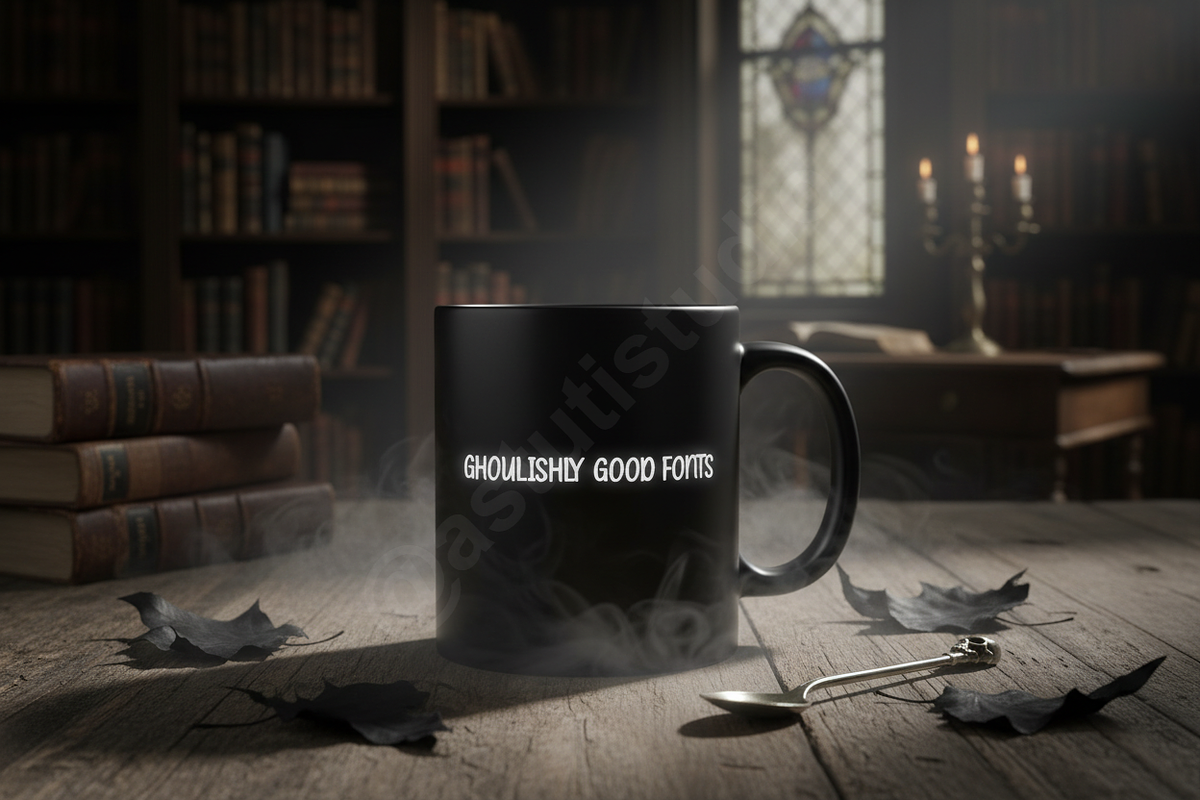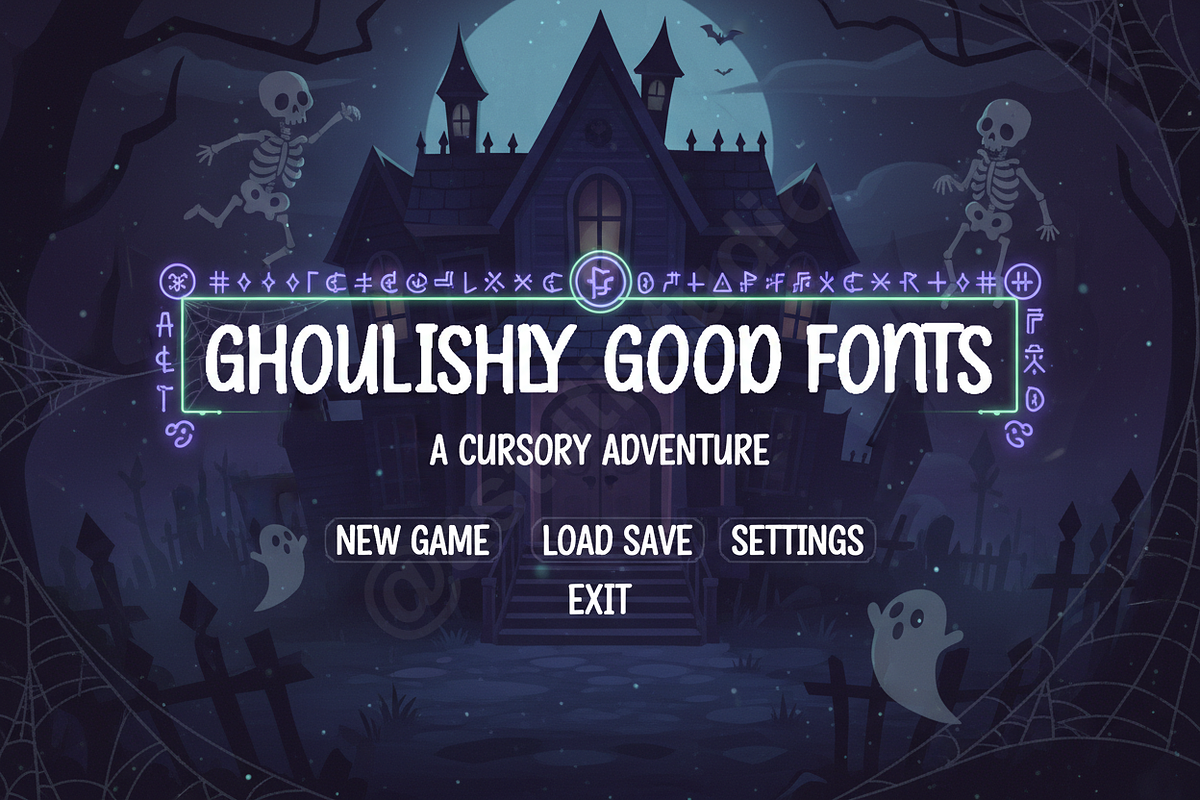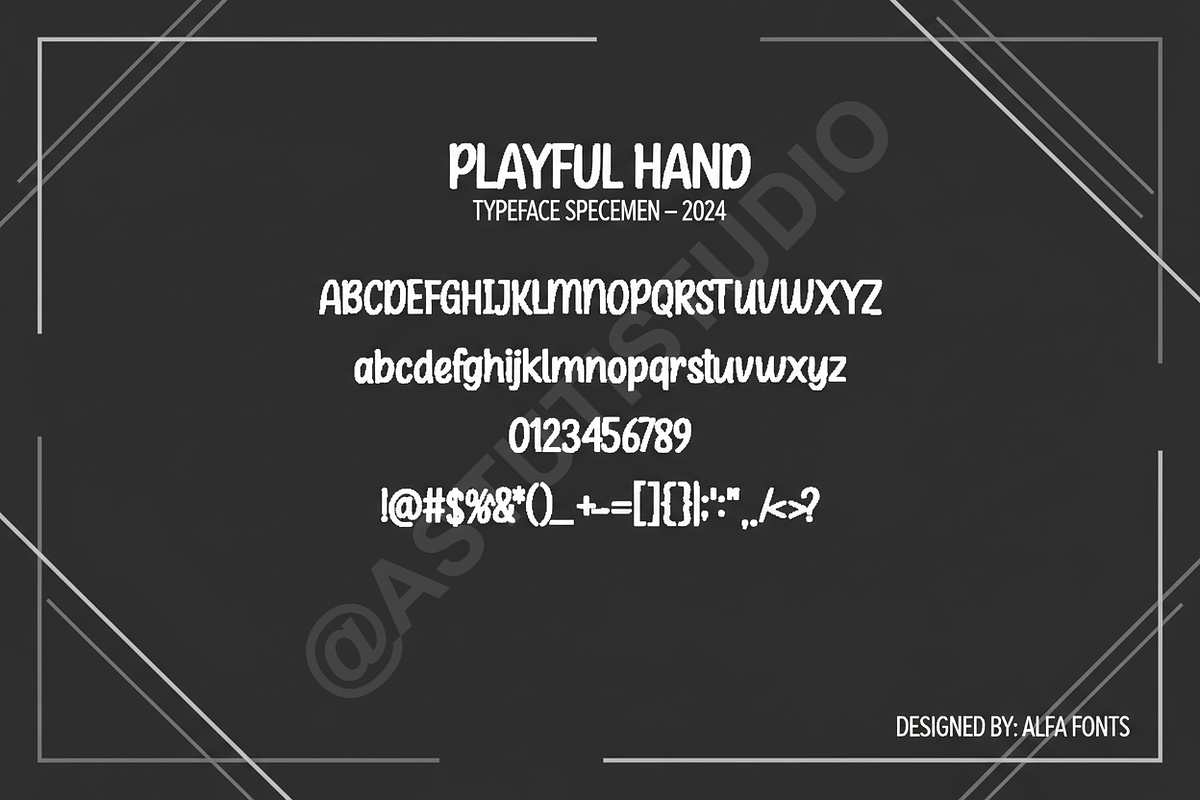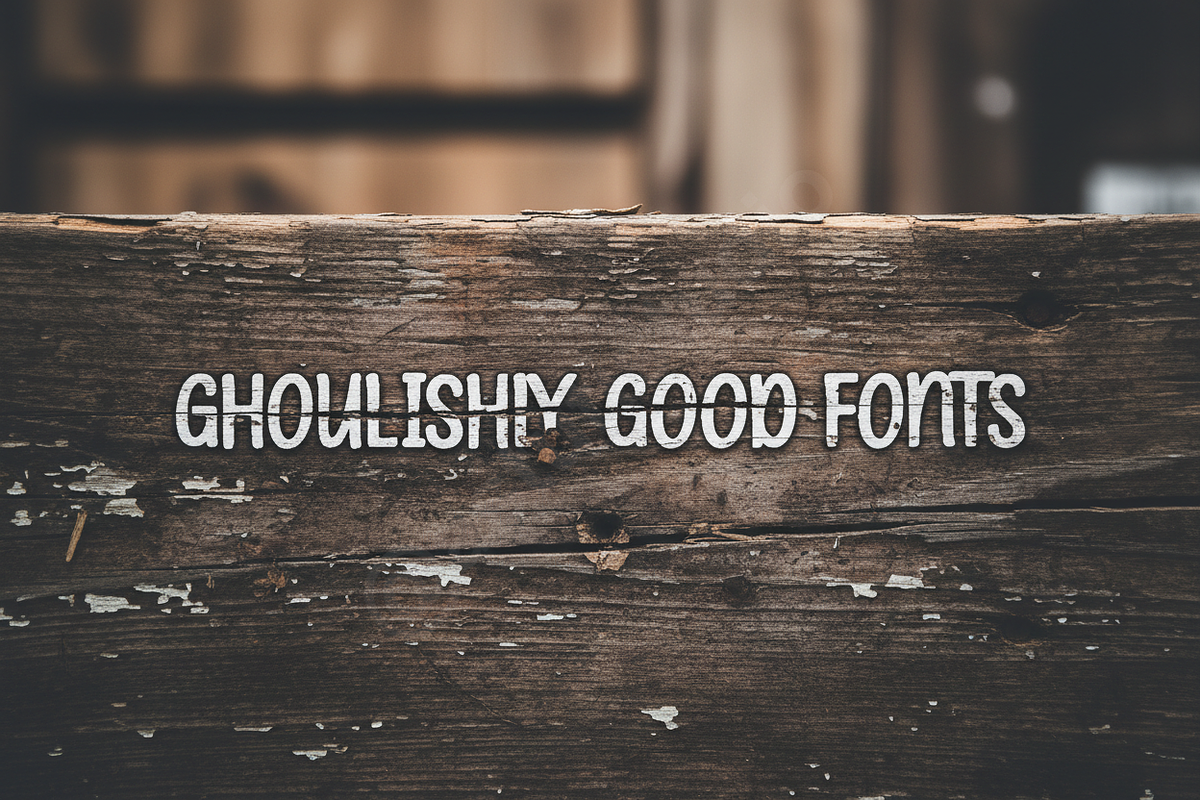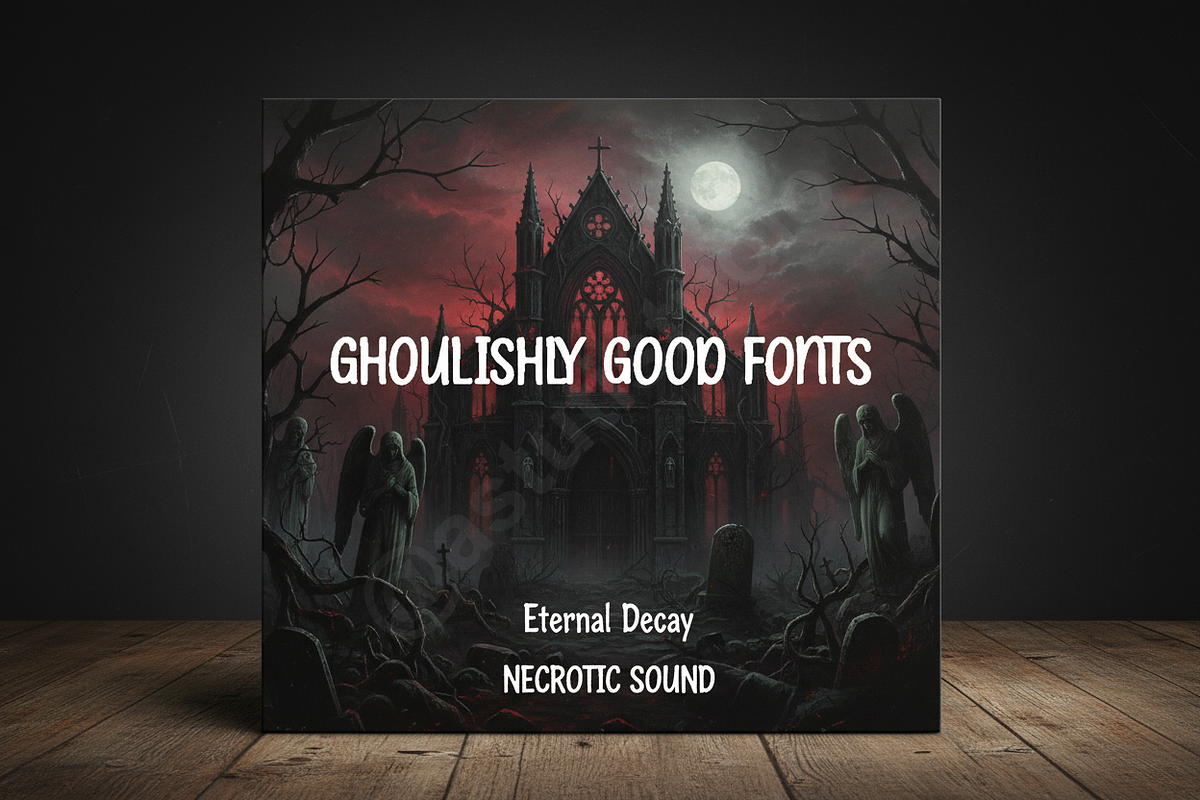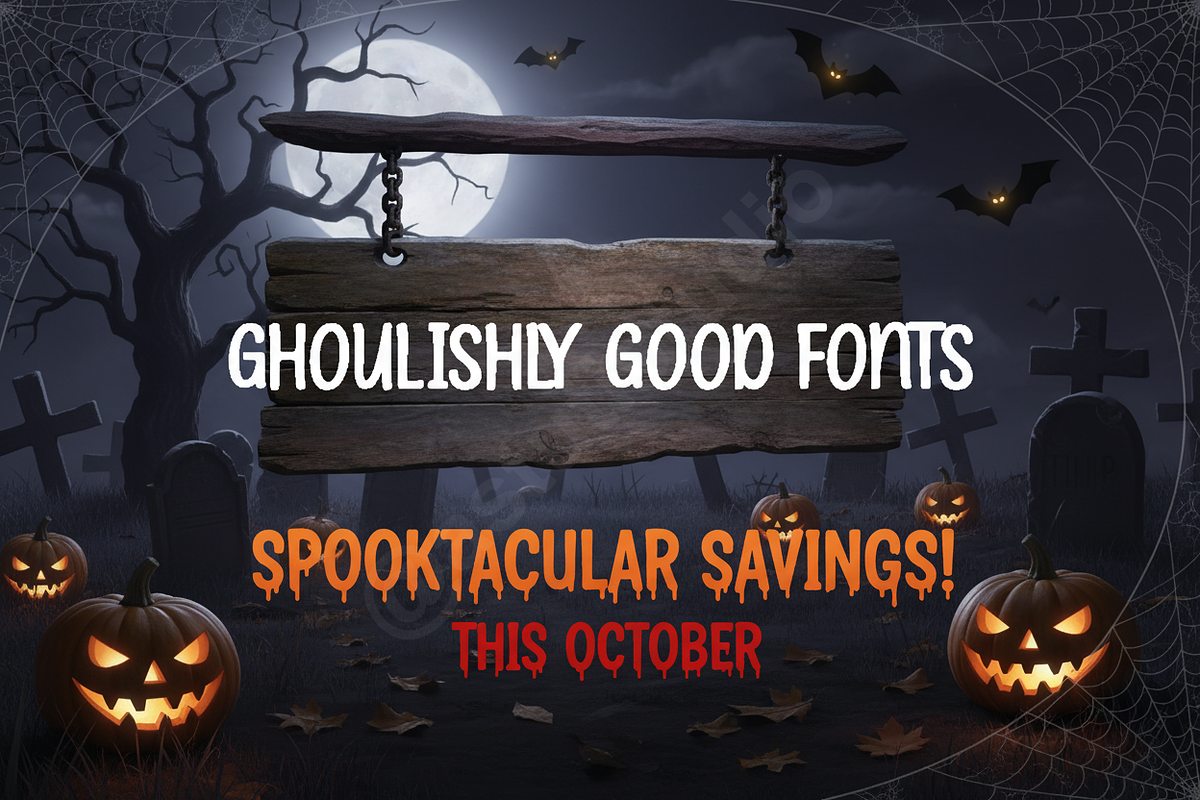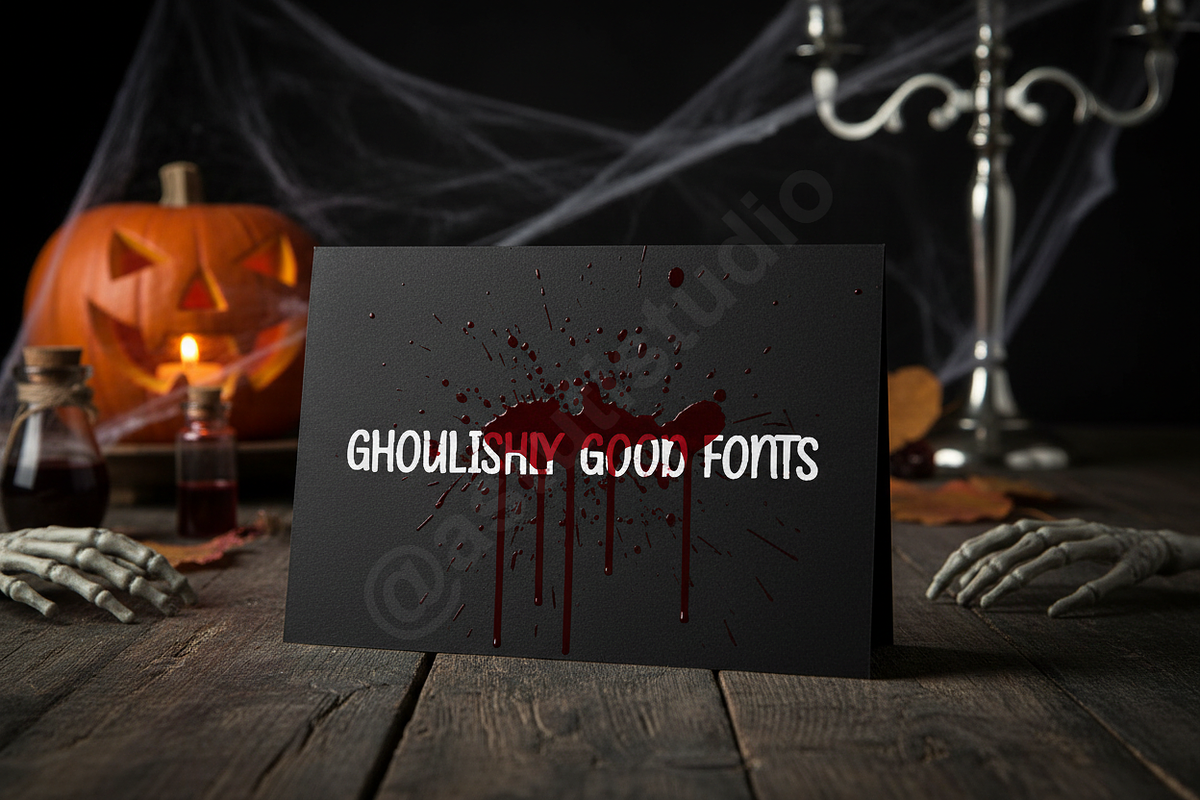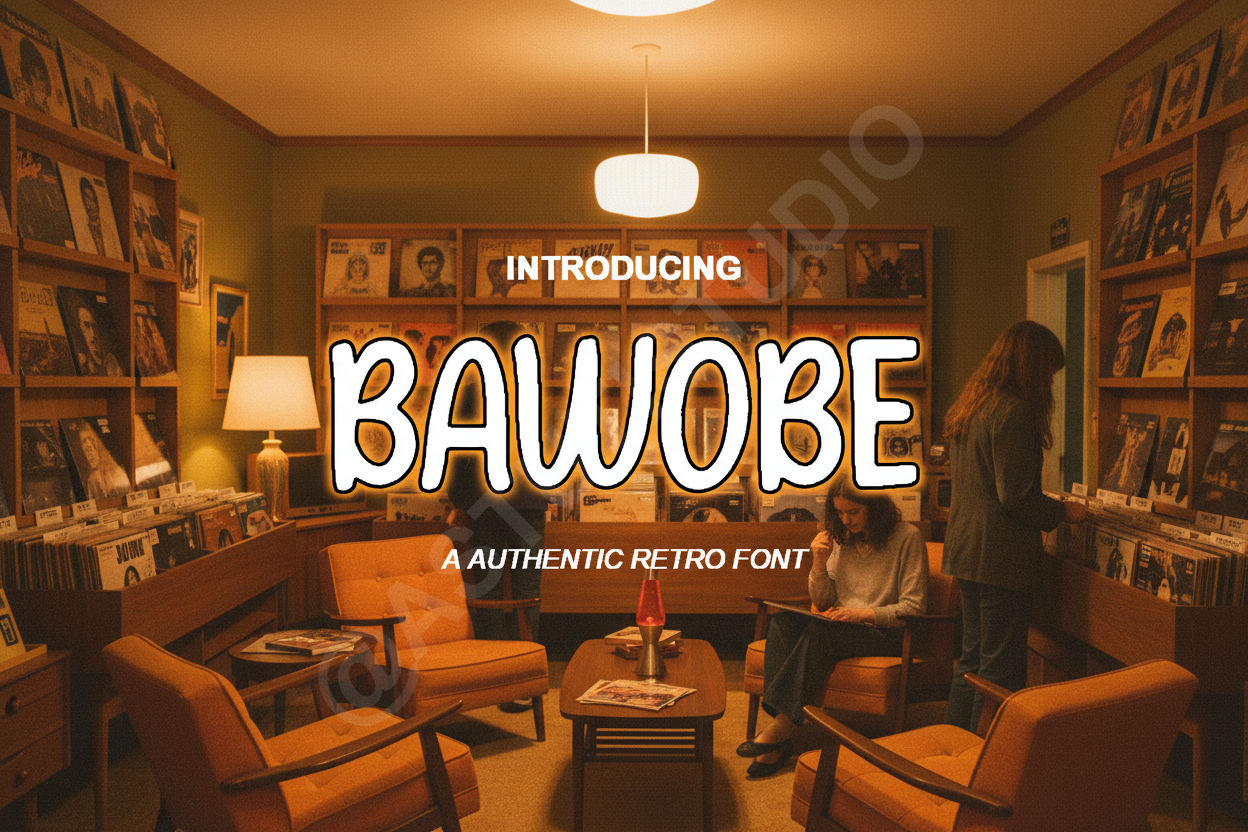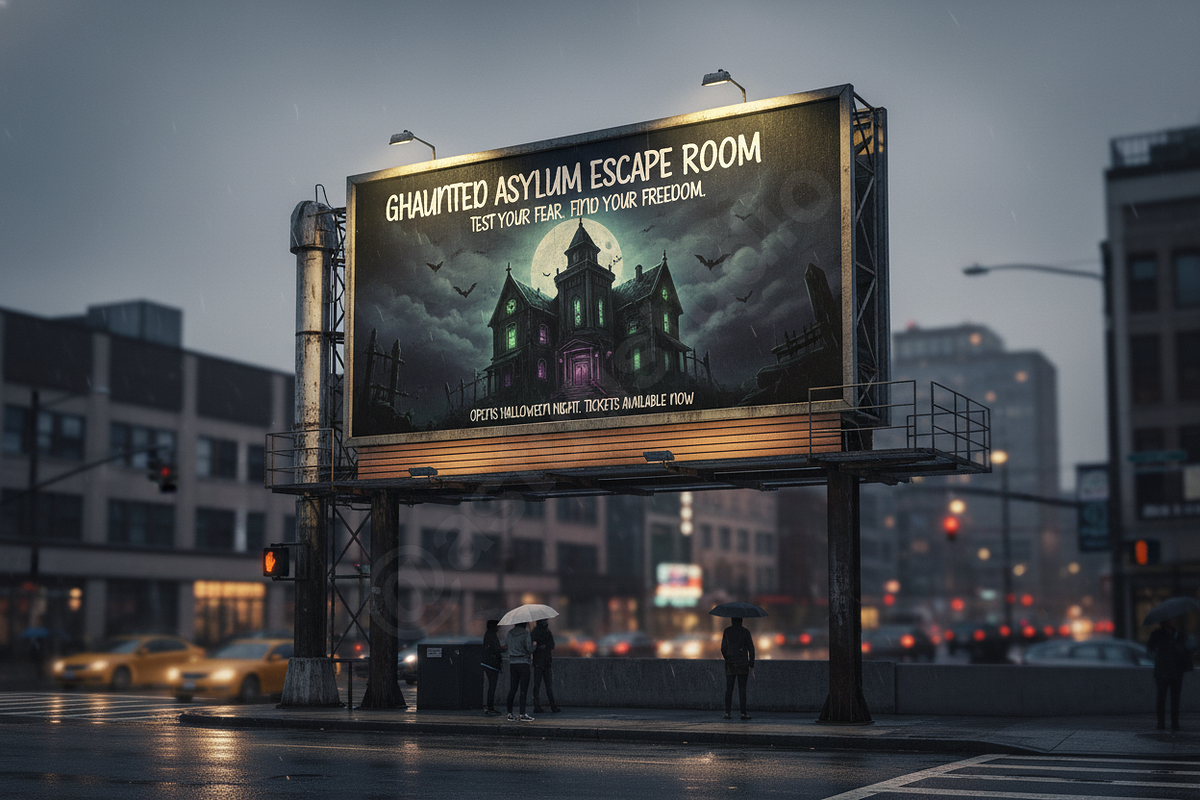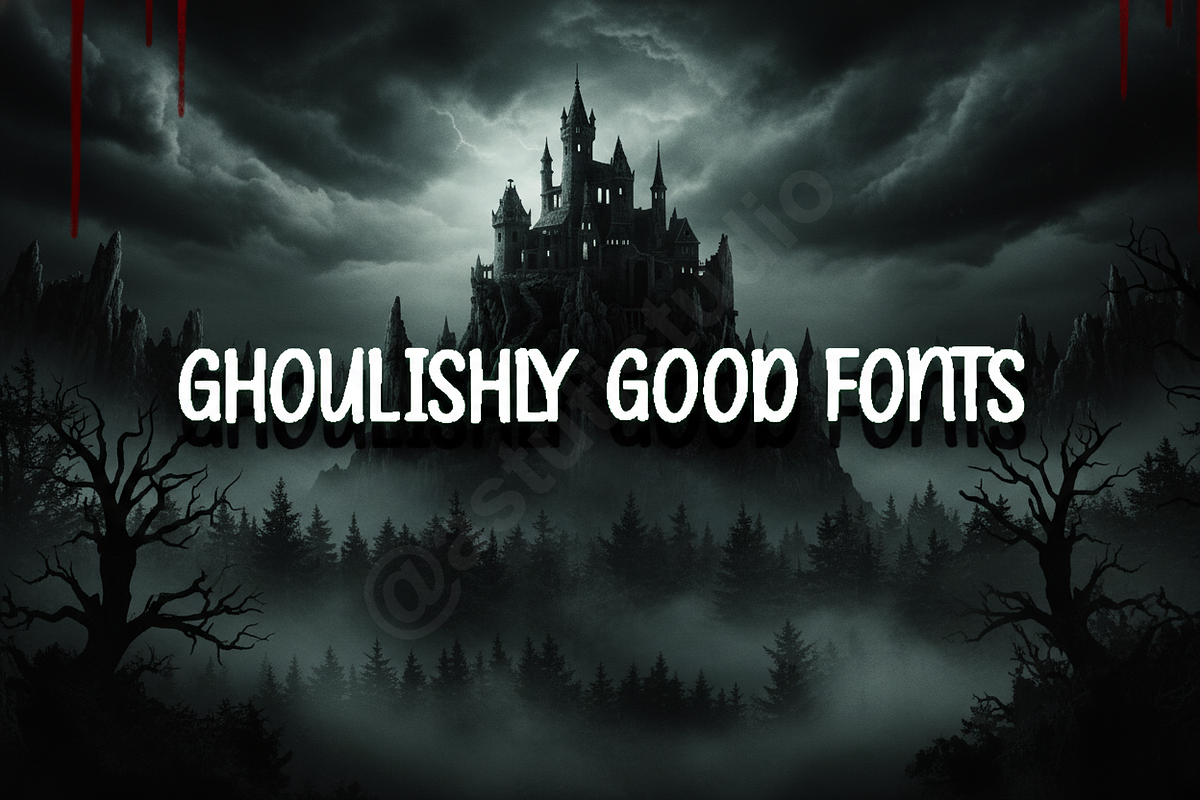
Bawobe Creepy Dripping Horror Font
✨ INTRODUCING BAWOBE ✨
Bawobe Playful Kids Font - Cute Bouncy Handwritten Typeface | Children's Birthday Party Design, Crafting, Cricut Projects & Procreate SVG Font
Elevate your designs with Bawobe, a Kids typeface carefully crafted to bring a professional touch to your creative projects.
✅ PERFECT FOR: • Children's book covers and interior illustrations • Birthday party invitations, banners, and decorations • Classroom materials, educational posters, and flashcards • Kids clothing design (T-shirts, pajamas) and apparel branding • Fun craft projects, vinyl decals, and Cricut/Silhouette cutting files